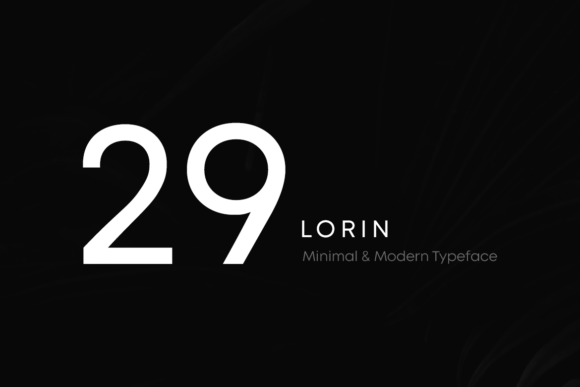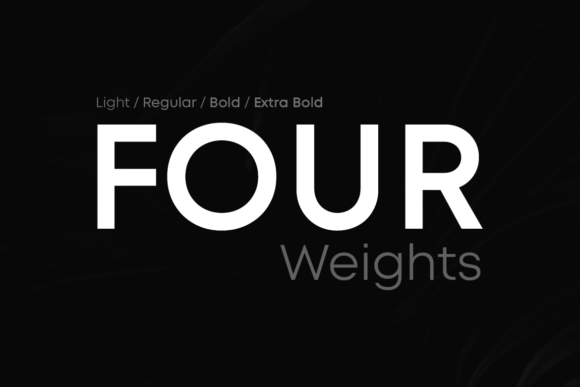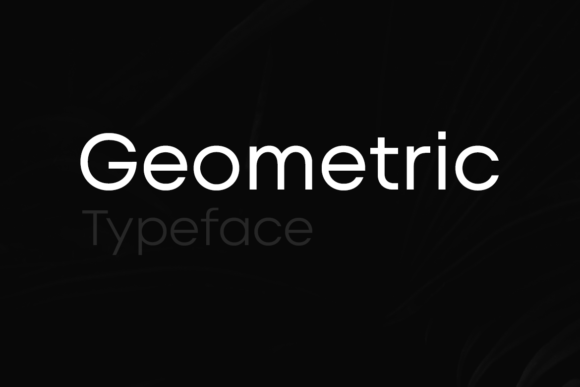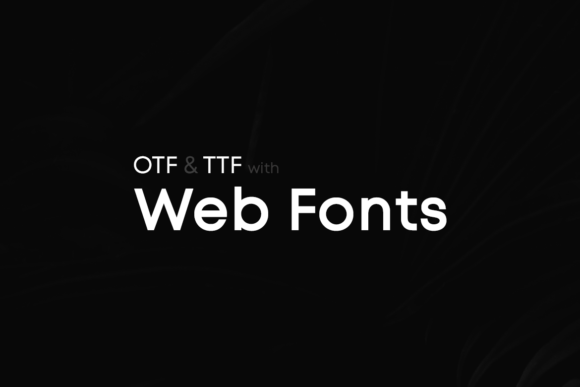
Introduction to Lorin Font
Do you remember that moment when you’re scrolling through a high-end fashion website and you can’t help but pause at the elegant typography? The clean lines, the perfect spacing, and the subtle flair that makes your eyes linger on the text. That’s the magic of a well-designed font, and one such font that can help you achieve this level of sophistication is the Lorin Font.
As a designer, you know how much a great font can elevate your creative project. Whether it’s a logo, a headline, or a body of text, a high-quality font can make all the difference. And that’s exactly what the Lorin Font offers – a modern geometric sans serif typeface that’s perfect for a wide range of design applications.
Key Features of Lorin Font
- Lorin Font is a high-quality design resource ideal for various creative projects.
- This font family consists of 4 styles: Light, Regular, Bold, and Italic, providing a range of options for your creative project.
- Lorin Font’s unique characteristics include its clean and modern design, making it perfect for modern and minimalist designs.
Honest Review: Lorin Font
As a designer, I’m always on the lookout for high-quality design resources to elevate my creative projects. The Lorin Font is a great addition to my toolkit, offering a unique and elegant aesthetic.
Here are some things that work well: ✨
- High-quality design: The Lorin Font is crisp and clean, making it perfect for any design project.
However, there are some limitations to consider: ⚠️
- Limited character set: The Lorin Font only comes in a limited character set, which may not be suitable for longer texts.
- No bold or italic versions: This may limit its use in certain design projects where bold or italic text is required.
Overall, the Lorin Font is a solid choice for designers who need a high-quality, elegant font for their creative projects. While it may have some limitations, its unique design and free availability make it a valuable addition to any design resource library.
Lorin Font